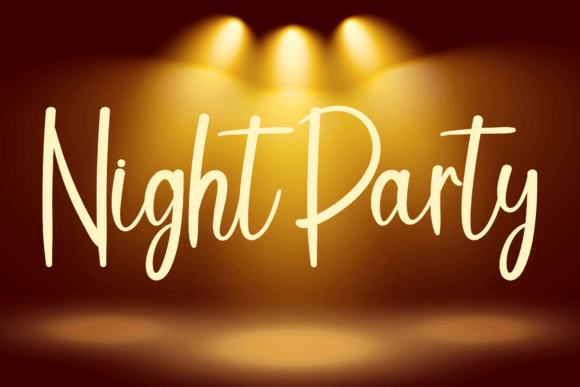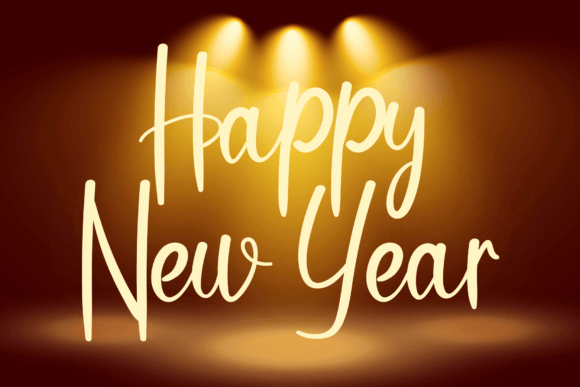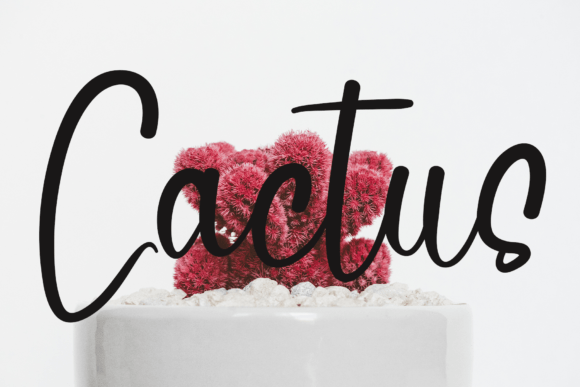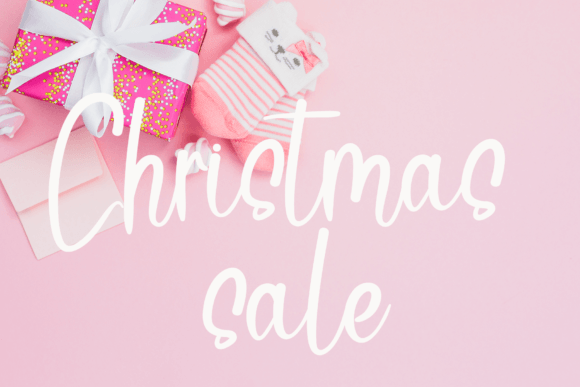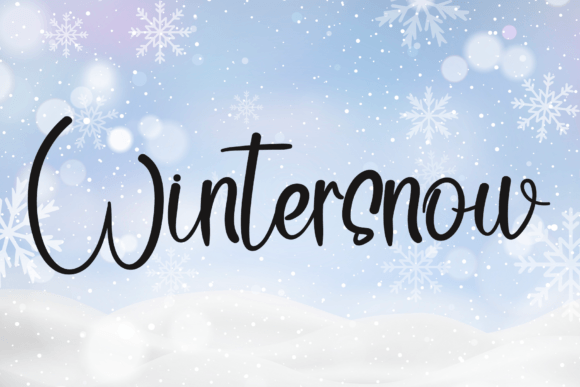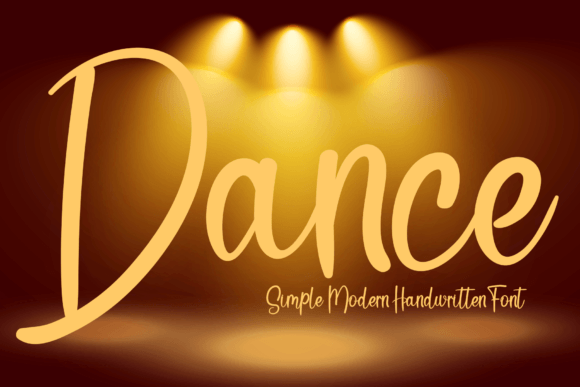
Dance Font: Elevate Your Designs with Elegance and Timeless Style
Are you a designer or crafter looking for a font that can add a touch of sophistication and beauty to your projects? Look no further than the Dance Font, a neat and beautiful handwritten font that is sure to capture your heart. With its elegant touch and incredibly distinct style, Dance Font is the perfect choice for anyone looking to create spectacular designs that stand out from the crowd.
What is Dance Font?
Dance Font is a handwritten font that is characterized by its elegant and refined style. It is a unique and creative font that is perfect for a wide range of design projects, from wedding invitations and party decorations to branding and advertising materials. With its beautiful and intricate lettering, Dance Font is sure to add a touch of class and sophistication to any design.
Key Features of Dance Font
So, what makes Dance Font so special? Here are just a few of its key features:
- Elegant and Refined Style: Dance Font has a beautiful, handwritten style that is both elegant and refined. Its intricate lettering and classic design make it perfect for a wide range of design projects.
- Incredibly Distinct and Timeless Style: Unlike other fonts that may go out of style quickly, Dance Font has a timeless quality that ensures it will remain popular for years to come. Its unique and distinct style makes it perfect for designers and crafters who want to create designs that stand out from the crowd.
- Perfect for a Wide Range of Projects: Whether you’re working on a wedding invitation, a party decoration, or a branding project, Dance Font is the perfect choice. Its versatility and flexibility make it suitable for a wide range of design projects.
Why Choose Dance Font?
So, why should you choose Dance Font for your design projects? Here are just a few reasons:
- Adds a Touch of Sophistication: With its elegant and refined style, Dance Font is sure to add a touch of sophistication to any design. Whether you’re working on a formal or informal project, Dance Font is the perfect choice.
- Unique and Distinct Style: Unlike other fonts that may be generic or overused, Dance Font has a unique and distinct style that ensures your designs will stand out from the crowd.
How to Use Dance Font
Using Dance Font is easy! Here are just a few steps to get you started:
- Choose Your Project: Decide on the project you want to work on, whether it’s a wedding invitation, a party decoration, or a branding project.
- Customize Your Design: Use Dance Font to create a custom design that reflects your unique style and vision. Experiment with different colors, textures, and graphics to create a truly unique design.
Tips and Tricks for Using Dance Font
Here are a few tips and tricks for using Dance Font:
- Experiment with Different Colors: Dance Font looks great in a variety of colors, from classic black and white to bold and bright hues. Experiment with different colors to find the perfect look for your design.
- Add Texture and Graphics: Add texture and graphics to your design to give it a more dynamic and interesting look. Dance Font pairs well with a variety of textures and graphics, from simple lines to intricate patterns.
- Use it with Other Fonts: Dance Font can be used with other fonts to create a unique and interesting look. Experiment with different font combinations to find the perfect look for your design.
In conclusion, Dance Font is a beautiful and elegant handwritten font that is perfect for designers and crafters who want to add a touch of sophistication and beauty to their projects. With its incredibly distinct and timeless style, Dance Font is sure to capture your heart and inspire your creativity. So why wait? Download Dance Font today and start creating spectacular designs that stand out from the crowd!